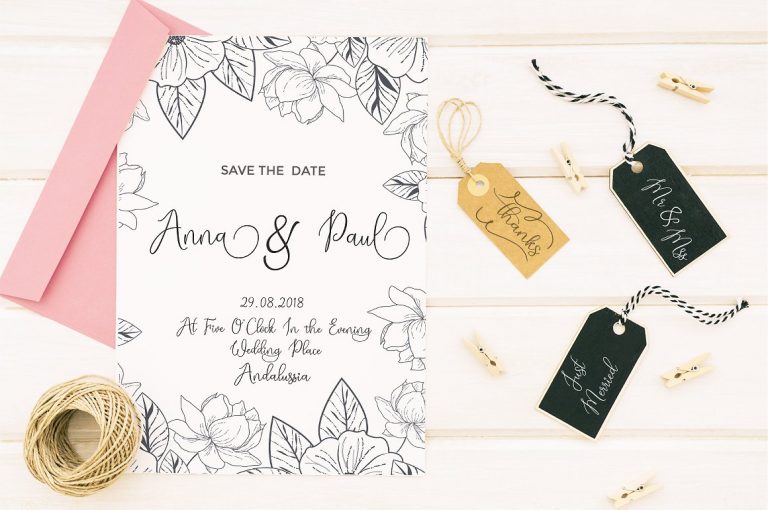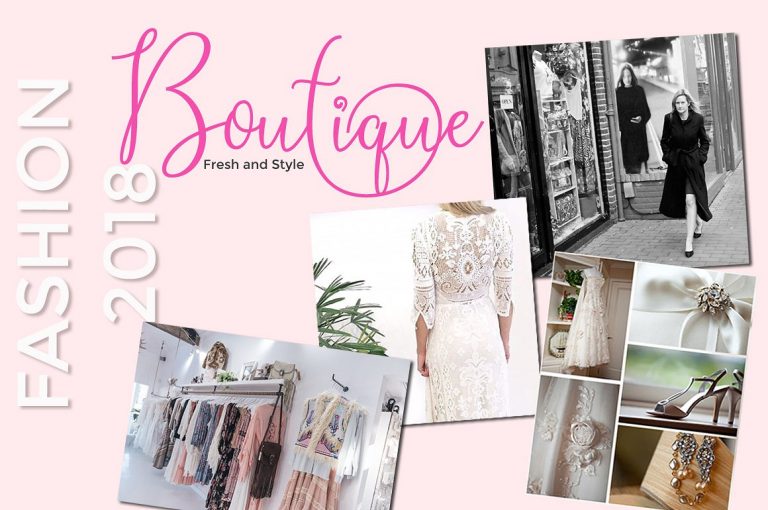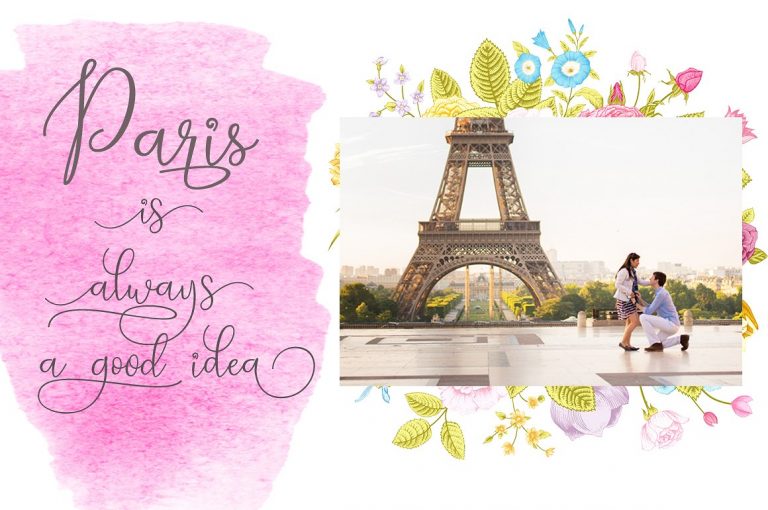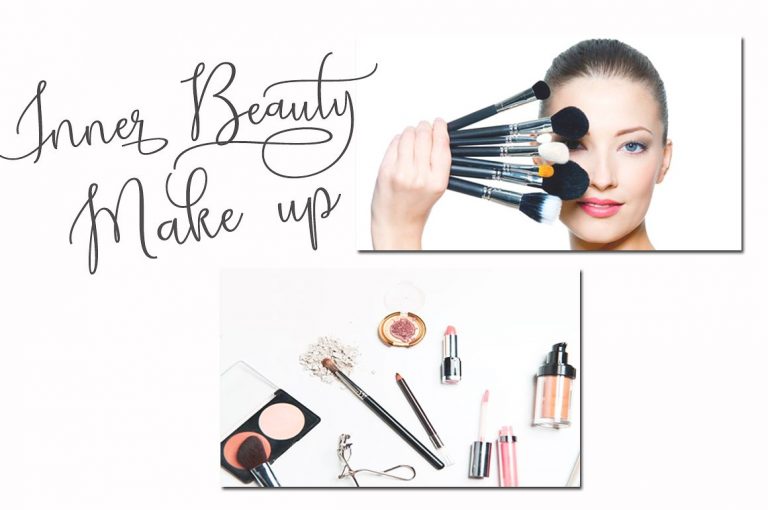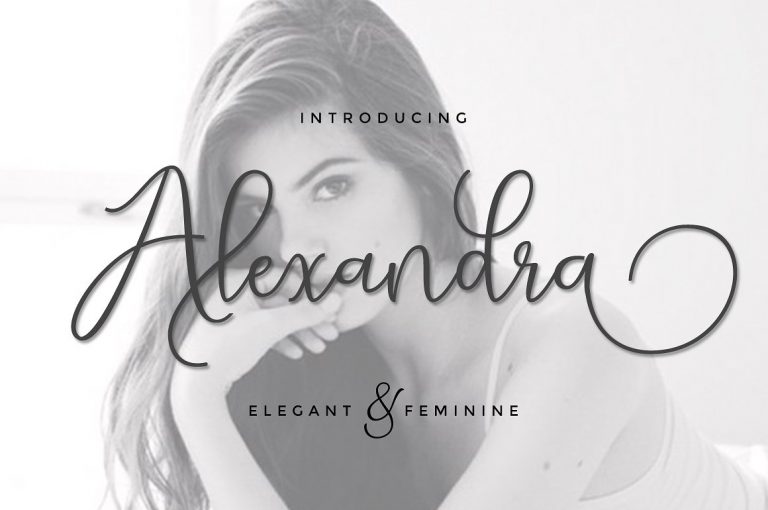
Alexandra Script Font
A modern calligraphy typeface, designed and shared by cooldesignlab. Introducing Alexandra Font. Alexsandra – a beautiful casual modern calligraphy font. Contemporary script style that hit the trends nowadays. It would be a perfect mate for branding, logo, fashion stuff, cosmetic, apparel, journal, lookbook, greeting cards, a fancy presentation, glamor appearance, magazine. So versatile, right?